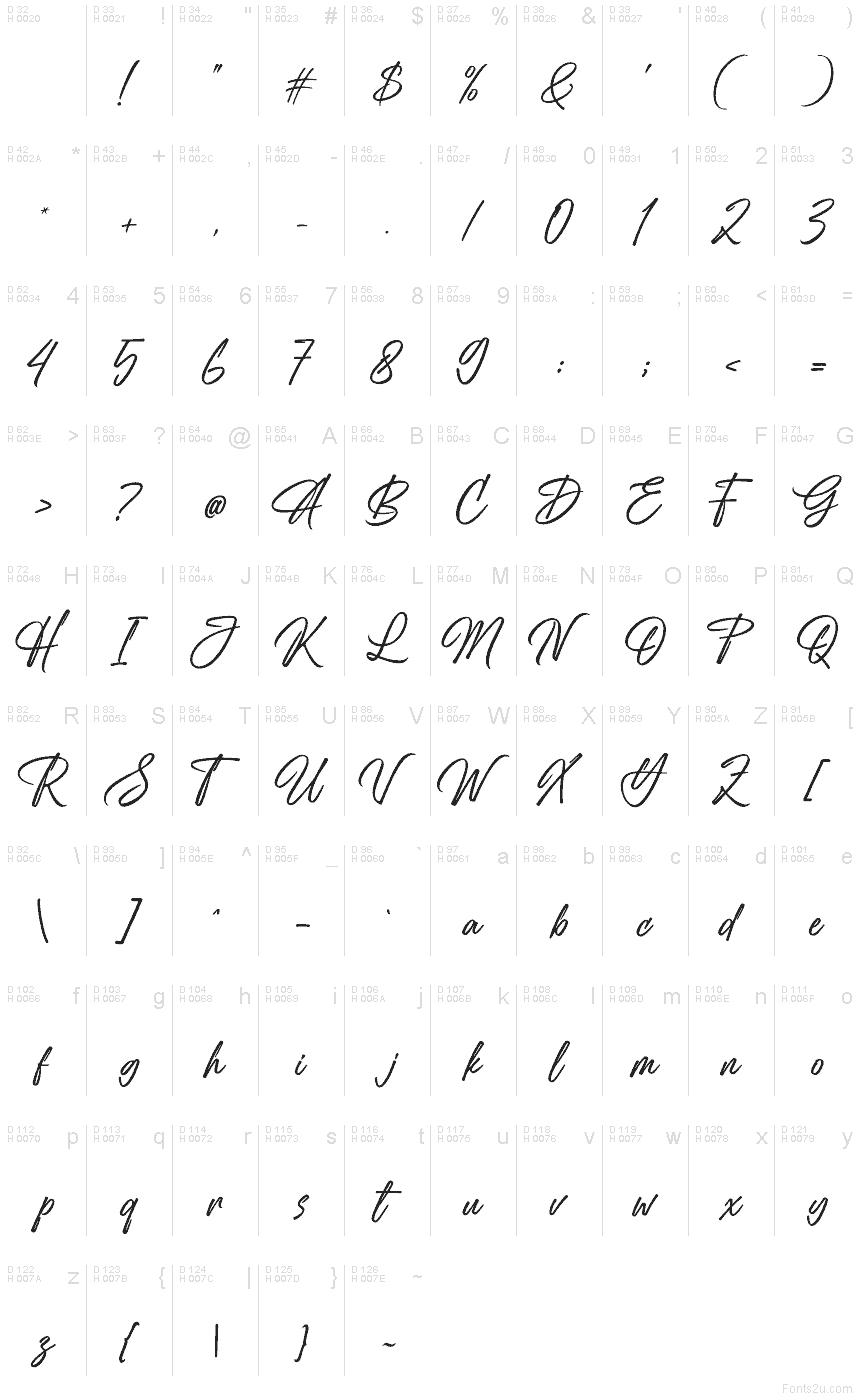
Antaresia
Antaresia font is a captivating handwritten typeface by Subectype & Orenari, capturing casual elegance in every stroke. A free signature-like font, its free-flowing design presents expressive curves in a smooth harmonious flow. Used in combination with its elegant style and flowing letters this script font is perfect for both small and large size projects.
Use Antaresia as the primary or secondary typography on posters, advertising campaigns, branding designs (logo types), magazines explorations along with galleries and other artistic venues. Choose it for packaging presentations (cosmetics etc.), clothes and accessories items designs as well as stationery products including cards of all sorts!